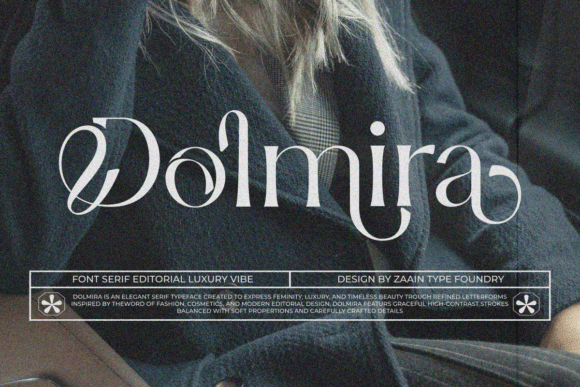
The Art of Elegance: Unveiling the Dolmira Font
Imagine you’re browsing through a luxurious fashion magazine, and the intricate typography catches your eye. The elegant curves and refined details transport you to a world of sophistication and glamour. This is the kind of creative moment that inspires designers to push the boundaries of typography. For those who crave a font that exudes refinement and poise, Dolmira Font is the perfect solution. This stunning serif font seamlessly blends classic character with a modern touch, making it an ideal choice for premium branding needs.
With its smooth thick-and-thin contrast, Dolmira Font delivers a clean and professional aesthetic that’s both timeless and feminine. Whether you’re working on a high-end packaging design, exclusive invitation, or fashion editorial layout, Dolmira Font is the perfect centerpiece for your design. Its luxurious details and refined appearance make it a valuable asset for designers seeking to create distinctive and elegant designs.
Dolmira Font Key Features
- Unique Characteristics: Dolmira Font features a unique blend of modern and traditional elements, with intricate details and ornate designs, making it suitable for various design applications.
Dolmira Font Review
Overall, I think Dolmira Font is an interesting choice for designers, but it has its strengths and weaknesses. ✨
- Unique Character Set: Dolmira Font offers a unique set of characters that can add a touch of personality to your design.
- Flexibility: This font is available in multiple styles, including regular, bold, and italic, giving you flexibility in how you use it.
- Modern Feel: Dolmira Font has a modern feel to it, which can be great for designers working on contemporary projects.
- Limited Readability: At larger font sizes, Dolmira Font can become difficult to read due to its unique character set.
- Not Suitable for Small Text: This font is not ideal for small text, such as body copy, due to its complexity.
- May Not Be Suitable for All Audiences: Dolmira Font’s unique style may not be suitable for all audiences or projects.
Overall, I think Dolmira Font is a great choice for designers who want to add a touch of personality to their work, but it’s not without its limitations.
The Dolmira Font is suitable for a variety of design projects, including:
- Logo design
- Branding materials
- Print materials (business cards, brochures, etc.)
- Digital materials (websites, social media, etc.)